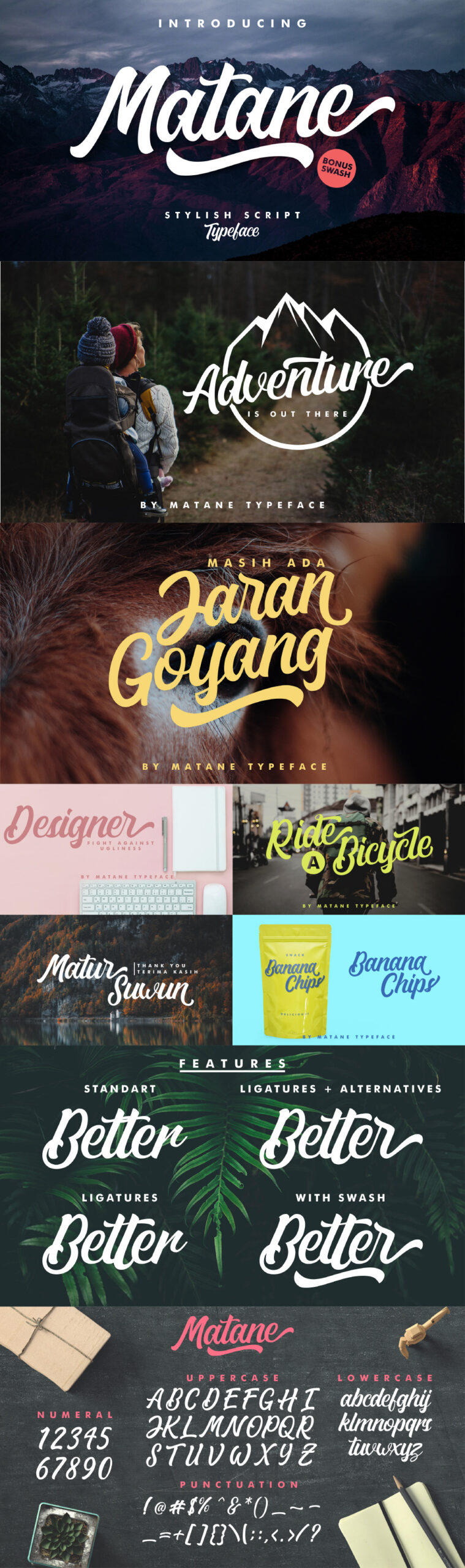
Give your typeface toolbox a little love with Matane Font! Matane is a a Stylish hand painting script created by Yudha Ageng. It’s an excellent choice for packaging and branding, as well as headlines, publishing and advertising. Download the demo version below and check the full version here. The demo version is free for personal use.